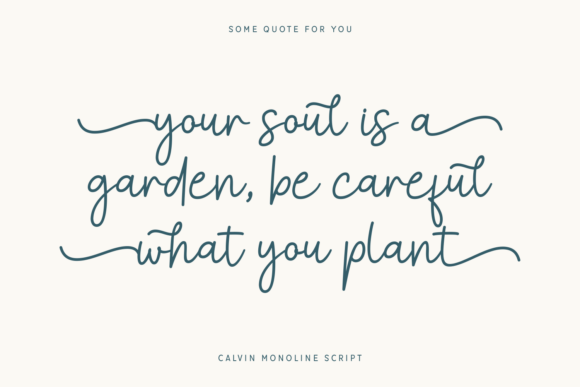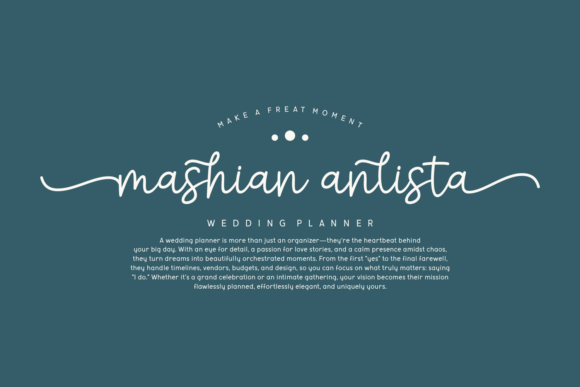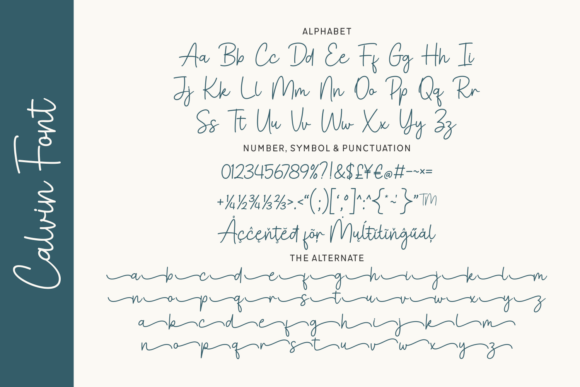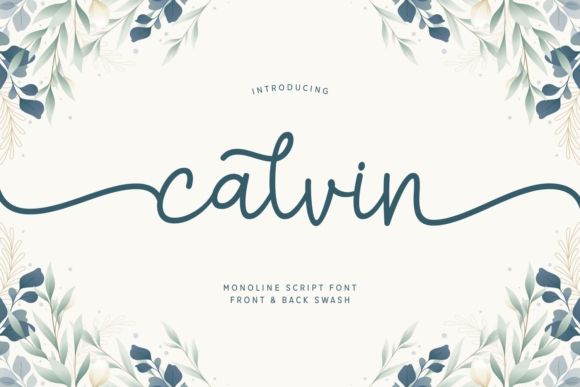
Introducing Calvin Font: Elevate Your Designs with Elegance and Sophistication
In the world of typography, a font can make or break the aesthetic of a design. For designers and crafters seeking to add a touch of elegance and sophistication to their work, Calvin Font is an exceptional choice. This modern monoline script font is designed to impress, featuring elegant front and back swashes that culminate in a perfectly polished finish.
What Makes Calvin Font Stand Out?
Calvin Font boasts a range of characteristics that set it apart from other fonts. Its smooth, continuous strokes and minimalist style lend an air of refinement and luxury to any design. The balanced weight and natural flow of the font ensure that it is easy to read, while still conveying a sense of personality and creativity.
Ideal Applications for Calvin Font
Due to its unique blend of elegance and approachability, Calvin Font is ideal for a variety of design applications. Some of the most popular uses for this versatile font include:
- Wedding Stationery: Add a touch of romance and sophistication to wedding invitations, save-the-dates, and other stationery with Calvin Font.
- Soft Branding: Create a luxurious and refined brand identity with Calvin Font, perfect for high-end businesses and lifestyle products.
- Lifestyle Blogs: Elevate your blog’s typography with Calvin Font, adding a touch of elegance and personality to your content.
- Organic Product Packaging: Stand out in a crowded market with Calvin Font, perfect for packaging design that requires a natural, effortless feel.
Designing with Calvin Font: Tips and Tricks
To get the most out of Calvin Font, consider the following design tips:
- Pair with Contrasting Fonts: Combine Calvin Font with a bold, contrasting font to create visual interest and hierarchy in your design.
- Experiment with Swashes: Take advantage of Calvin Font’s elegant swashes to add a touch of drama and flair to your design.
- Use for Headings and Titles: Calvin Font is perfect for headings and titles, adding a touch of sophistication and elegance to your design.
The Benefits of Using Calvin Font
By incorporating Calvin Font into your design workflow, you’ll enjoy a range of benefits, including:
- Elegant and Sophisticated Aesthetic: Calvin Font adds a touch of luxury and refinement to any design.
- Improved Readability: The balanced weight and natural flow of Calvin Font make it easy to read, even in smaller sizes.
- Versatility: Calvin Font is suitable for a wide range of design applications, from wedding stationery to product packaging.
Calvin Font is an exceptional choice for designers and crafters seeking to elevate their designs with elegance and sophistication. With its smooth, continuous strokes and minimalist style, this modern monoline script font is perfect for a wide range of applications. By incorporating Calvin Font into your design workflow, you’ll be able to add a touch of luxury and refinement to your work, setting you apart from the competition.
Whether you’re designing wedding stationery, soft branding, or product packaging, Calvin Font is an excellent choice. Its unique blend of elegance and approachability makes it an ideal font for designers seeking to create sophisticated and refined designs. So why not give Calvin Font a try and experience the difference it can make in your designs?